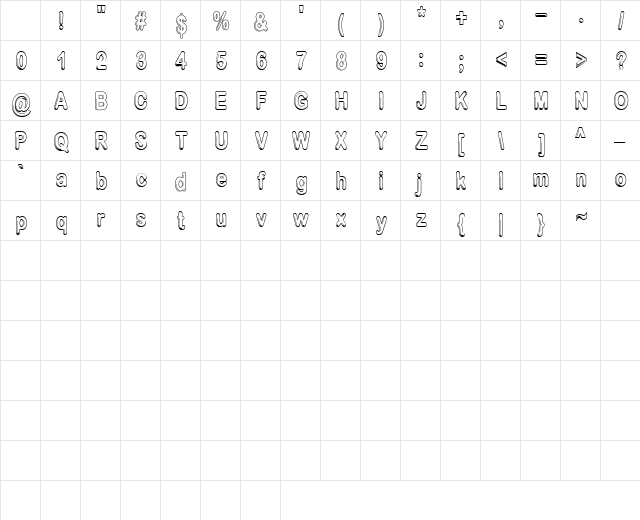
LD Bubbley has an approachable, lighthearted character - its loose, expressive forms are well-suited to children's content, casual branding, and fun-first design.
Font Pairing: Pairs well with a rounded or humanist sans for body copy, maintaining the friendly tone without relying on LD Bubbley to carry extended reading.
Pro Tip: Use LD Bubbley at larger display sizes where its expressive character can land. Pair with a clean, simple sans for body copy to maintain readability.